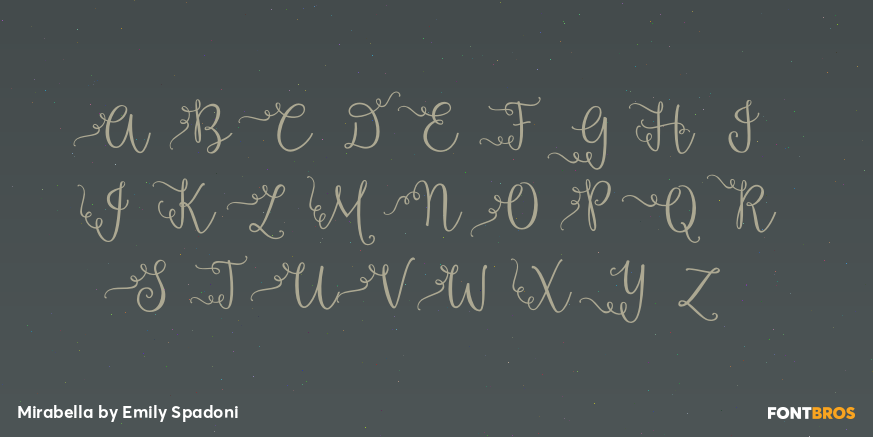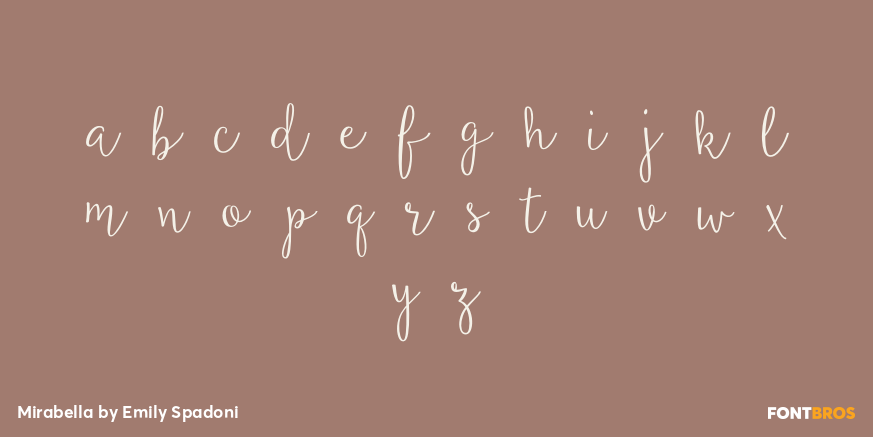
Mirabella
Font Family by Emily Spadoni
Including over 200 different hand-drawn characters for a range of languages and dialects.
The Mirabella script also includes two additional ornamental extras. A left font extension and a right font extension. These two extra typefaces help finish your beautifully typed project in a curly whirly. See image two above for a real example